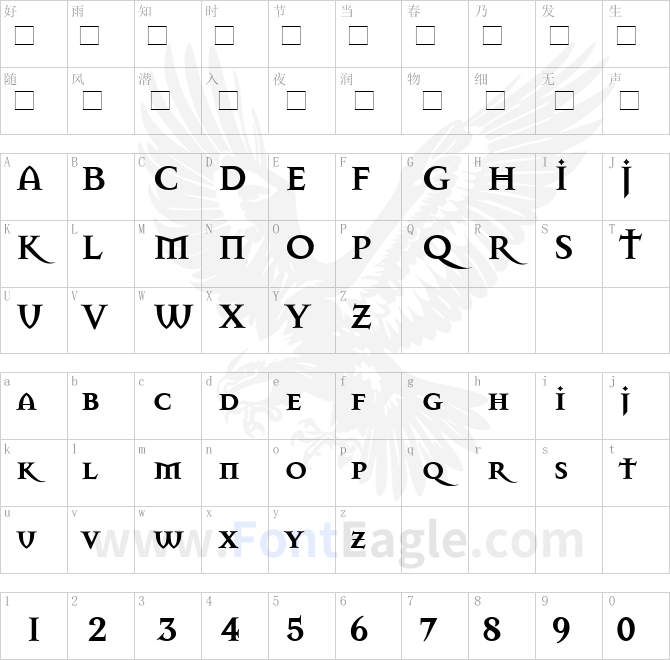
- Font name:Mason
- Font Subfamily ID:DTP-Mason-Bold
- Font Full Name:Mason-Bold
- Postscript:Mason-Bold
- Font Copyright:Copyright (C) 1993 Emigre Graphics; Designed by Jonathan Barnbrook